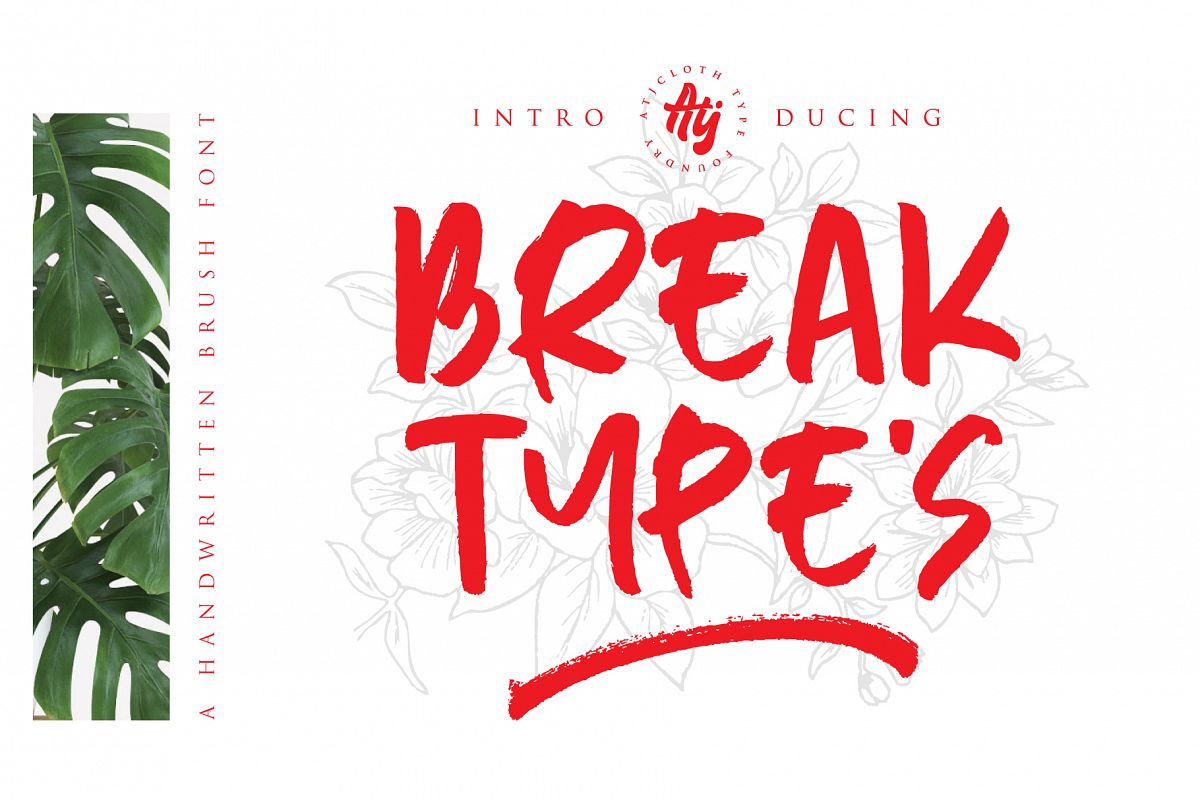
Break Types
Break Types is textured brush font, contemporary approach to design, handmade natural with an less regular baseline. Suitable for use in title design. Such as apparel, invitations, books tittle, stationery design, quotes, branding, logos, greeting card, t-shirt, packaging design, poster and more.